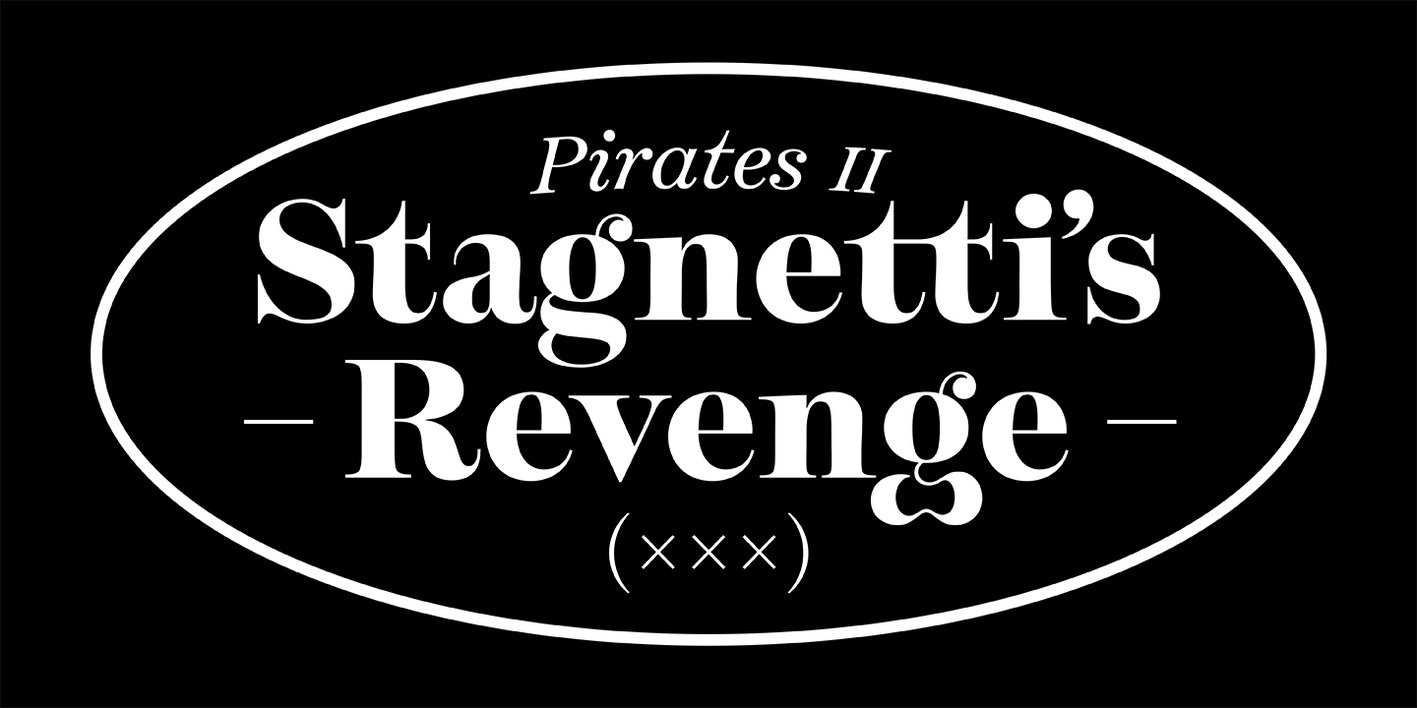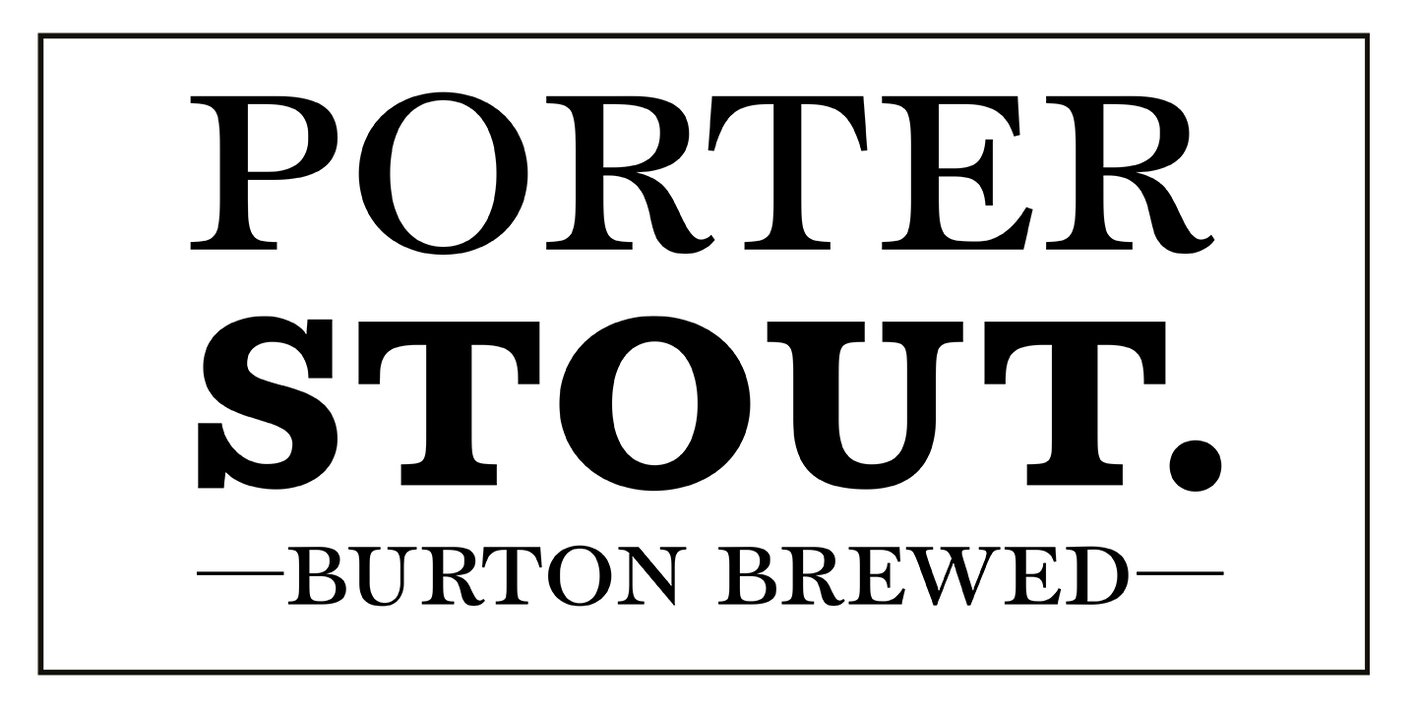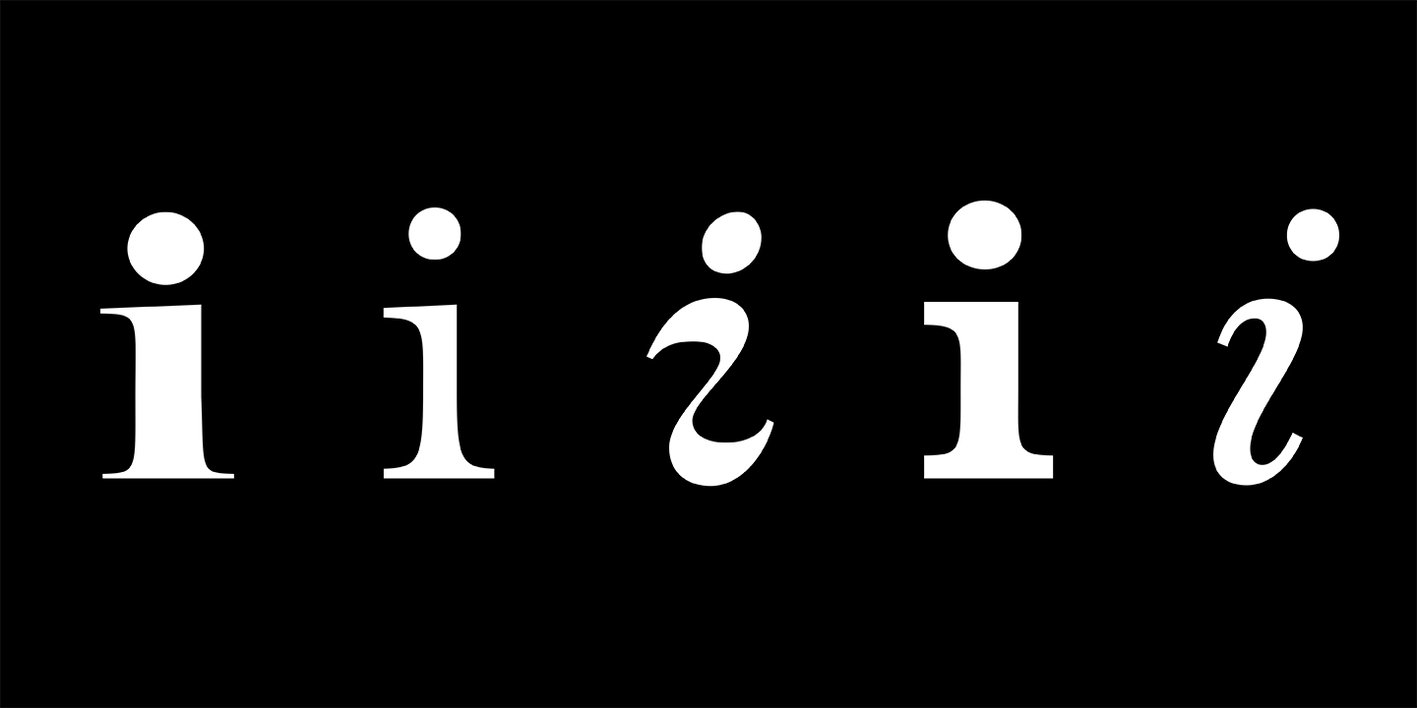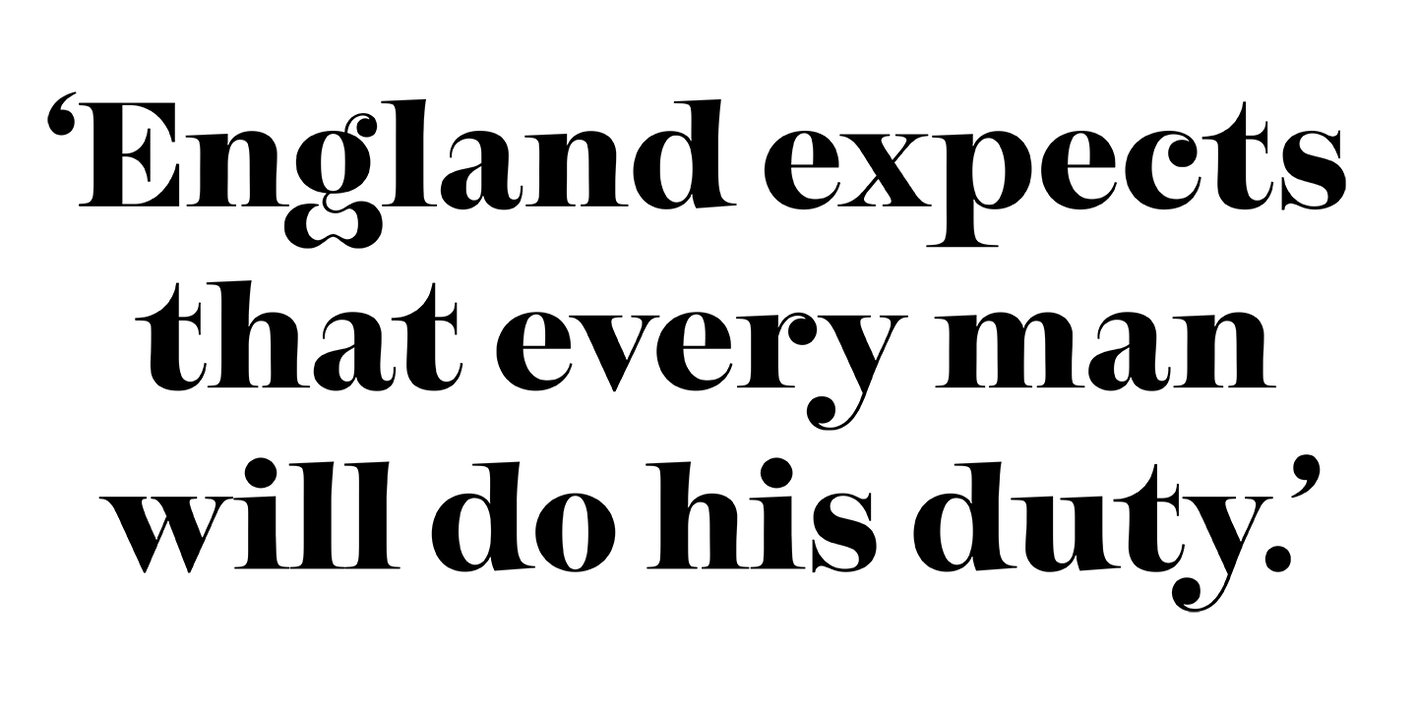
Temeraire Font
Temeraire Font is perfect for historical naval museums, maritime heritage publications, military history documentaries, naval academy presentations, ship restoration projects, maritime law firms, naval officer club signage, historical fiction book covers, adventure expedition branding, and British Royal Navy commemorative materials. This distinguished typeface brings naval tradition and maritime courage to any history-focused design project.
Temeraire Font is exciting because it embodies the fearless spirit and unwavering determination of legendary naval vessels, featuring bold, authoritative letterforms that evoke the courage and strategic brilliance that defined naval warfare's golden age. Its commanding presence instantly conveys maritime authority and historical significance.
The Temeraire Font family includes Light, Regular, Medium, Bold, and Heavy weights with matching italics, plus nautical alternates, maritime flourishes, and naval insignia-inspired glyphs that enhance the historical aesthetic, providing designers with comprehensive tools for creating authentic naval typography that honors maritime traditions.
Naval historians appreciate Temeraire Font for its exceptional ability to evoke specific historical periods and maritime themes through carefully crafted letterforms. The font's commanding character and nautical details create immediate associations with famous naval battles, heroic expeditions, and the brave sailors who shaped maritime history through their fearless service and strategic excellence.
The historical authenticity of Temeraire Font draws inspiration from HMS Temeraire, the legendary warship that played a crucial role in the Battle of Trafalgar, making it particularly effective for brands seeking to establish connections with naval heritage and maritime courage. Creative teams working on historical projects find this font essential for conveying authenticity and naval tradition.
Whether used for maritime museums, naval heritage celebrations, or historical adventure narratives, Temeraire Font delivers the perfect combination of historical accuracy and maritime authority. Its naval appeal and heroic authenticity make it an indispensable choice for projects that celebrate maritime courage, naval tradition, and the fearless spirit of legendary seafaring adventures.